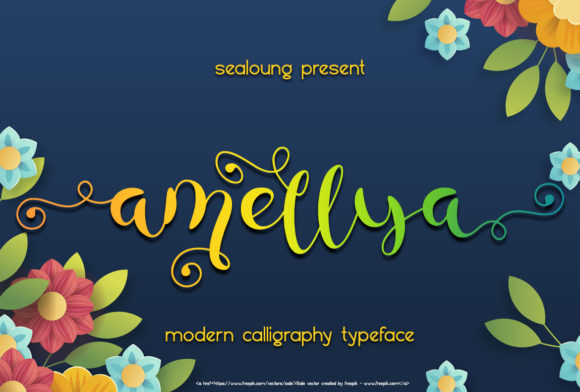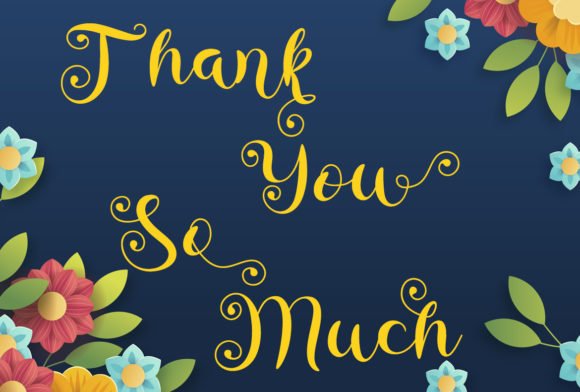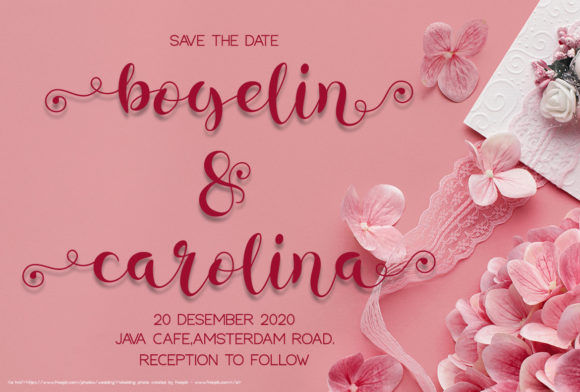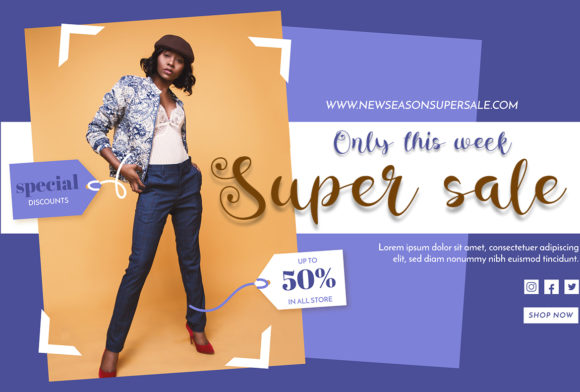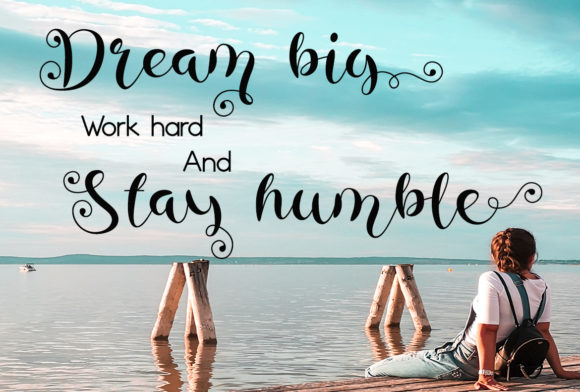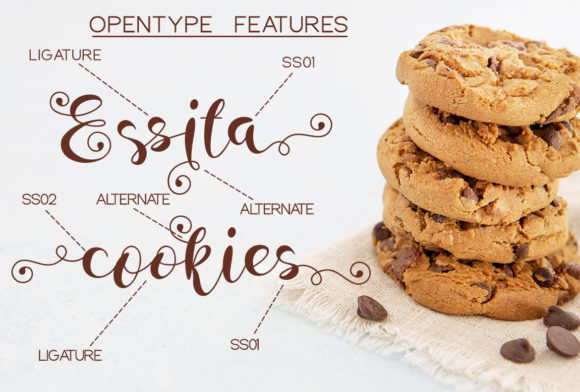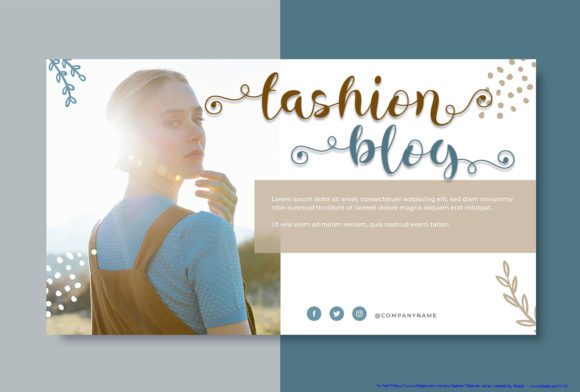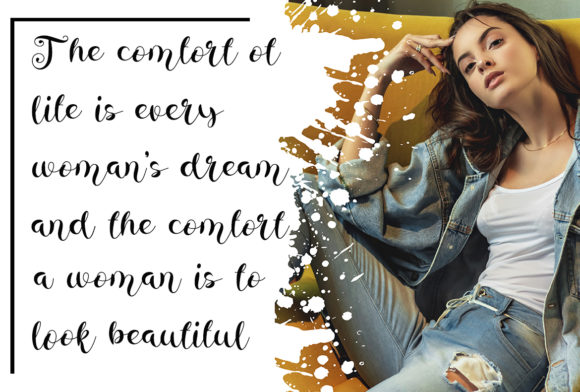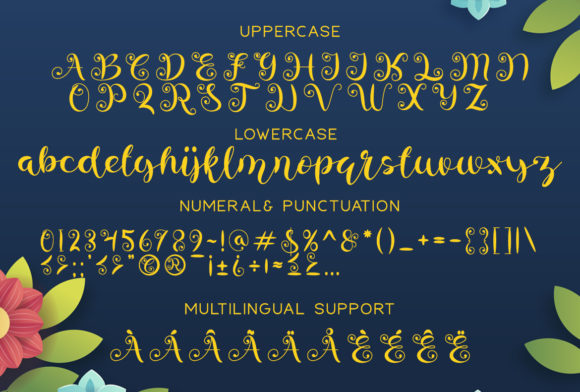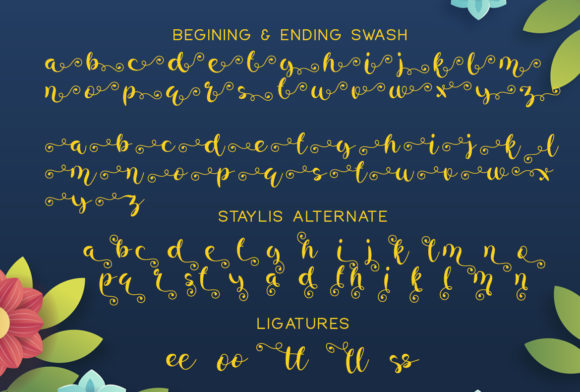
Amellya Font
About Amellya Font
Amellya is a delicate and elegant handwritten font. Its distinct and well rounded letters make this font a masterpiece. Fall in love with its incredibly versatile style and use it to create spectacular designs!